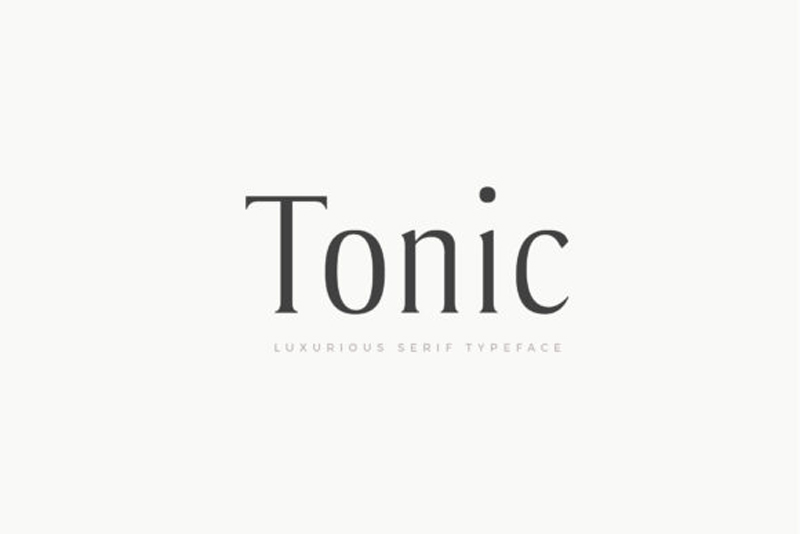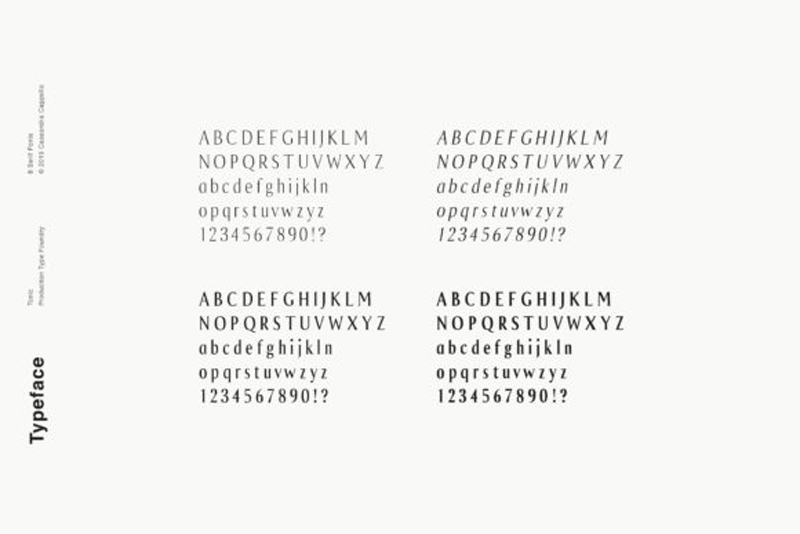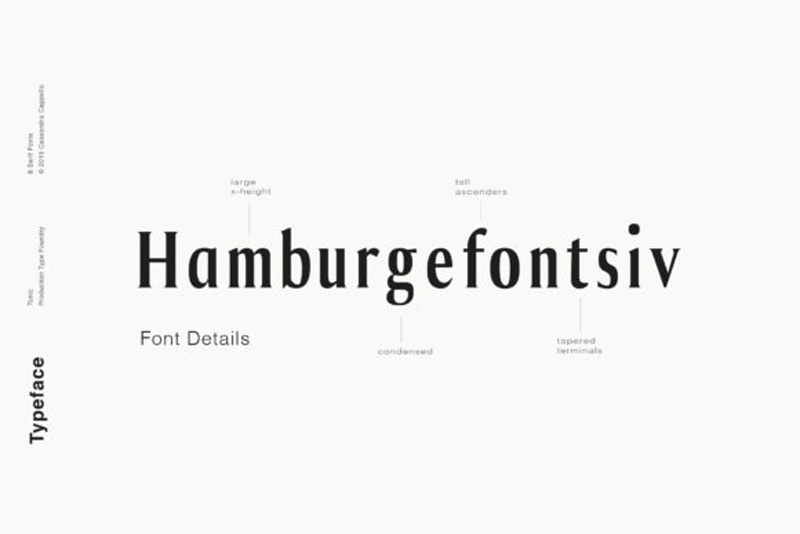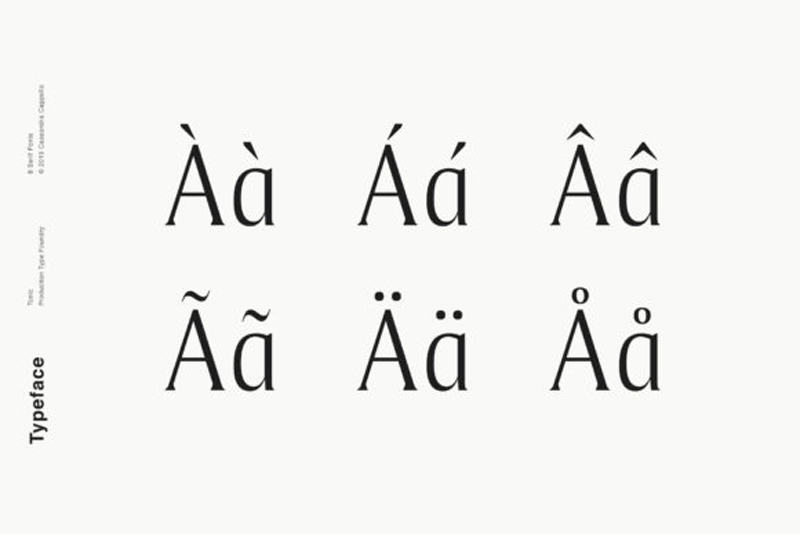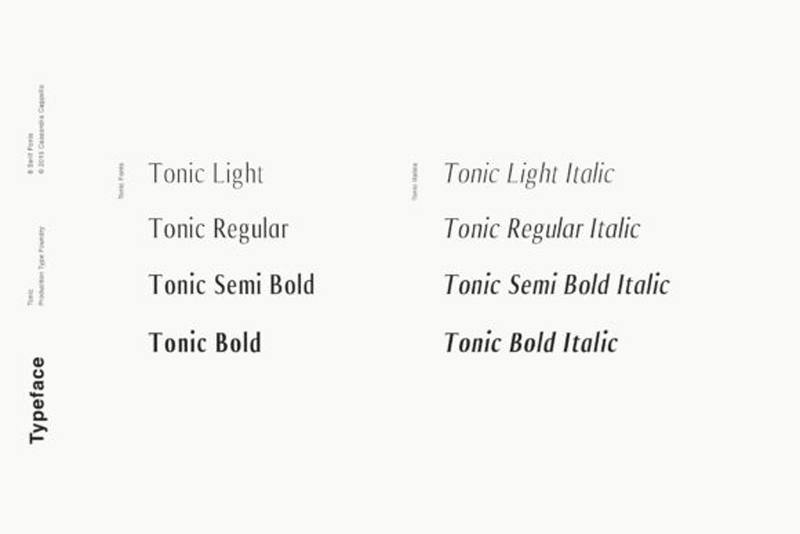
Tonic – Luxurious Serif Typeface
Tonic is a luxurious serif font. It’s inspired by classic typography and brings its own unique style to any design project. Whether you’re looking for fonts for Instagram or calligraphy scripts for DIY projects, Tonic will turn any creative idea into a true piece of art. Also checkout Sakhuro – Brush Typeface.